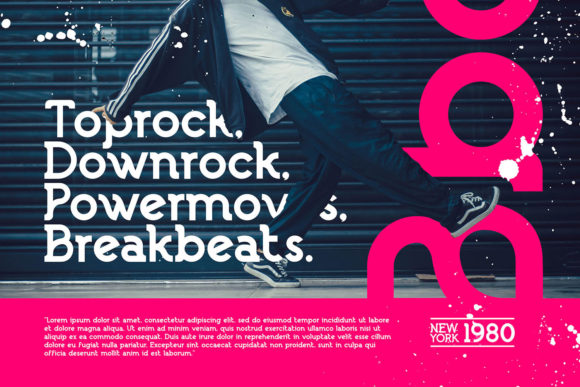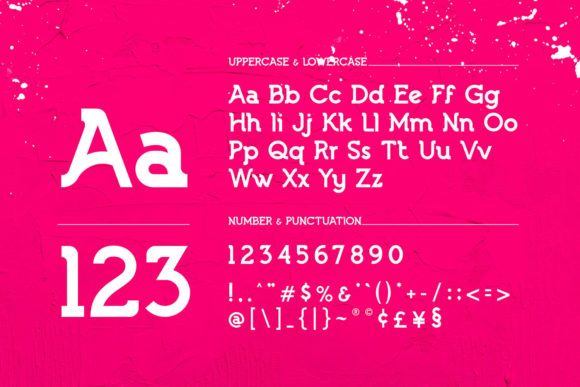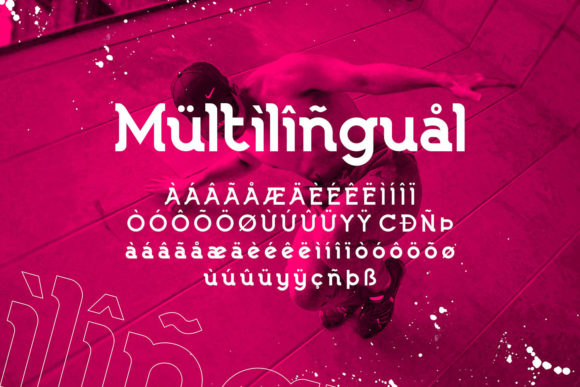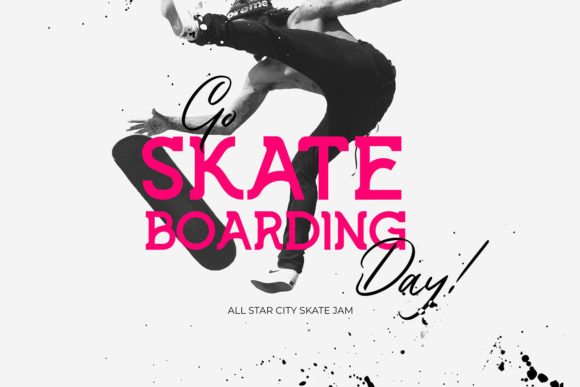
Lebron
Lebron: A Bold and Unique Slab Serif Font
Lebron is a striking slab serif font that combines boldness with a unique design. This imposing typeface easily matches many creative projects that need a distinct touch.
Key Features of Lebron
• Bold Design: Has strong, eye-catching letters that grab attention.
• Unique Style: Offers a one-of-a-kind look that stands out from other fonts.
• Slab Serif Structure: Includes the thick, square serifs typical of slab serif fonts.
• Imposing Presence: Creates a powerful visual impact in designs.
• Versatile Use: Fits many projects needing a distinct touch.
Best Uses for Lebron
Lebron works especially well for:
• Bold headlines and titles
• Impactful logo designs
• Striking poster and ad layouts
• Eye-catching website headers
• Distinctive packaging designs
• Powerful branding materials
When using Lebron in your designs, try these ideas:
• Use for headlines to maximize its bold and unique impact
• Try different sizes to show off the font’s special details
• Pair with simpler fonts for body text to create contrast
• Take advantage of its versatility in projects needing a strong look
Lebron is a great choice for designers wanting a bold and unique slab serif font. It stands out in typography with its imposing presence. Whether you’re working on logo designs that need to make a statement or creating eye-catching ads, Lebron offers both boldness and uniqueness.
Moreover, adding Lebron to your projects can lift your designs with its imposing style. From powerful headlines to distinctive branding, this font creates memorable typography. It appeals to those seeking a bold and unique look. Additionally, it’s flexible enough for various uses, from vintage-inspired designs to playful layouts needing a touch of boldness.
Furthermore, Lebron adapts well to different moods. It can create a dynamic atmosphere for sports content or aim for a more impactful mood in your designs. Its flexibility allows it to work in both bold projects and modern designs needing a strong presence. Lastly, for those wanting to add a touch of power with a unique feel, this font can even enhance vintage-inspired creations with a distinctive, bold twist.